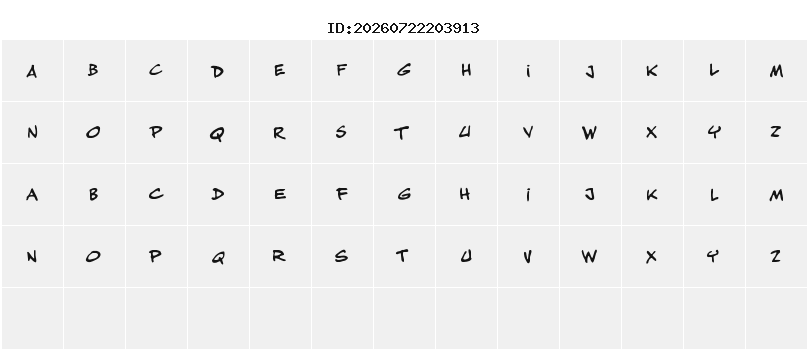
Musicos-variant-comics Preview
• Font Name: Musicos-variant-comics
• Font ID: Musicos-variant-comics:Version 1.00
• Full Font Name: Musicos-variant-comics
• Version: Version 1.00 January 20, 2011, initial release
• PostScript Name: Musicos-variant-comics
• Character Count: 655
• Description: Musicos-variant-comics is created with the Font Creator Program from High-Logic.com
About Musicos-variant-comics.ttf
Musicos-variant-comics.ttf is a modern, elegant sans-serif font designed for ultimate readability and visual harmony. Perfect for branding, headlines, web design, and print materials.